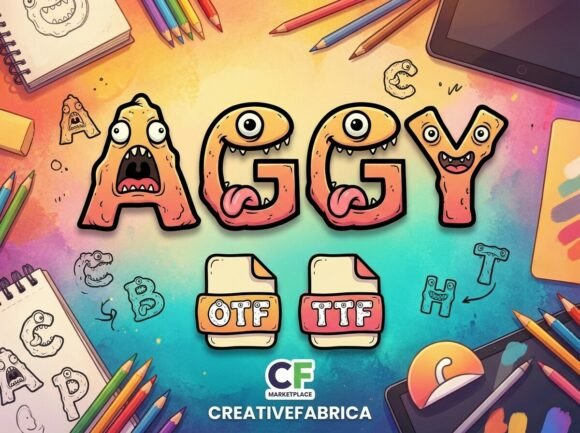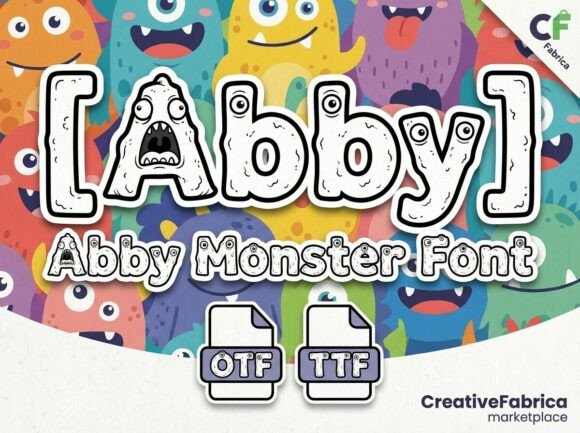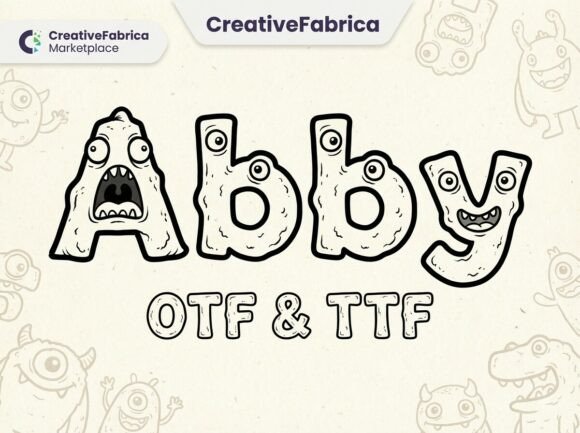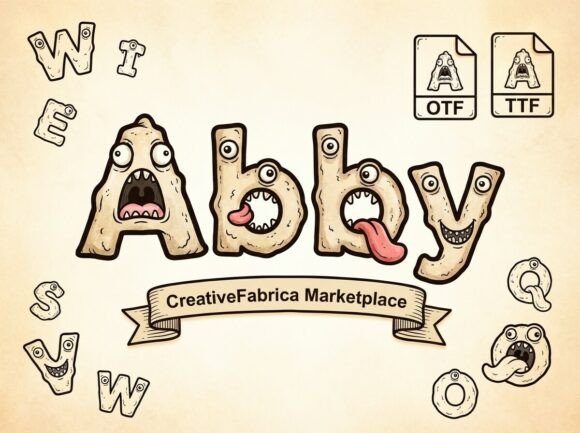
Meet Abby: The Quirky Monster Character Font That’s Stealing Hearts
I’ll never forget the time I was working on a children’s book project, and I just couldn’t find the right font to bring the story to life. The text needed to be playful, fun, and engaging, but everything I tried seemed either too boring or too generic. That’s when I stumbled upon Abby, a monstrously creative display font that turned my project around. In this article, I’ll share my experience with Abby, and show you how to make the most of this amazing font.
A Personal Design Moment: When Fonts Make or Break a Project
As designers, we’ve all been there – stuck with a font that just doesn’t cut it. I was working on a children’s book, and the font I chose was too bland, too boring. The story deserved better. That’s when I discovered Abby, a quirky monster character font that transformed my project. Every character in Abby is a living, breathing creature, complete with wide eyes, sharp teeth, and long wagging tongues. It was love at first sight!
Abby Font: A Comprehensive Review
What I Love About Abby ✨
• 🎉 Unique and playful design: Each character is a lovable, kooky monster that adds a hand-drawn, goofy energy to any project.
• ✅ Highly versatile: Perfect for children’s book titles, Halloween party decor, playful toy packaging, and more.
• 💻 Easy to use: Supports OpenType features, glyphs, and stylistic alternates, making it compatible with various design platforms.
• 👀 Attention-grabbing: The quirky design ensures your text stands out and grabs attention.
While Abby is an amazing font, there are a few things to keep in mind:
• 🤔 Legibility at small sizes: Due to the playful and detailed design, Abby may not be the best choice for body text or small font sizes.
• ⚠️ Limited use cases: While versatile, Abby’s quirky design might not be suitable for formal or professional projects.
The Backstory Behind Abby
Abby was designed with one goal in mind: to bring fun and playfulness to typography. The designer, inspired by childhood favorites like monsters and cartoons, created a font that’s both quirky and lovable. With Abby, you can add a touch of whimsy to any project and make it stand out.
Q: What type of projects is Abby best suited for?
A: Abby is perfect for children’s book titles, Halloween party decor, playful toy packaging, and any project that needs a fun, playful touch.
Q: Is Abby suitable for body text or small font sizes?
A: Due to its playful design, Abby is best used for display text or larger font sizes. For body text, consider a clearer font for better legibility.
Font Name Abby Font
Author Raholco